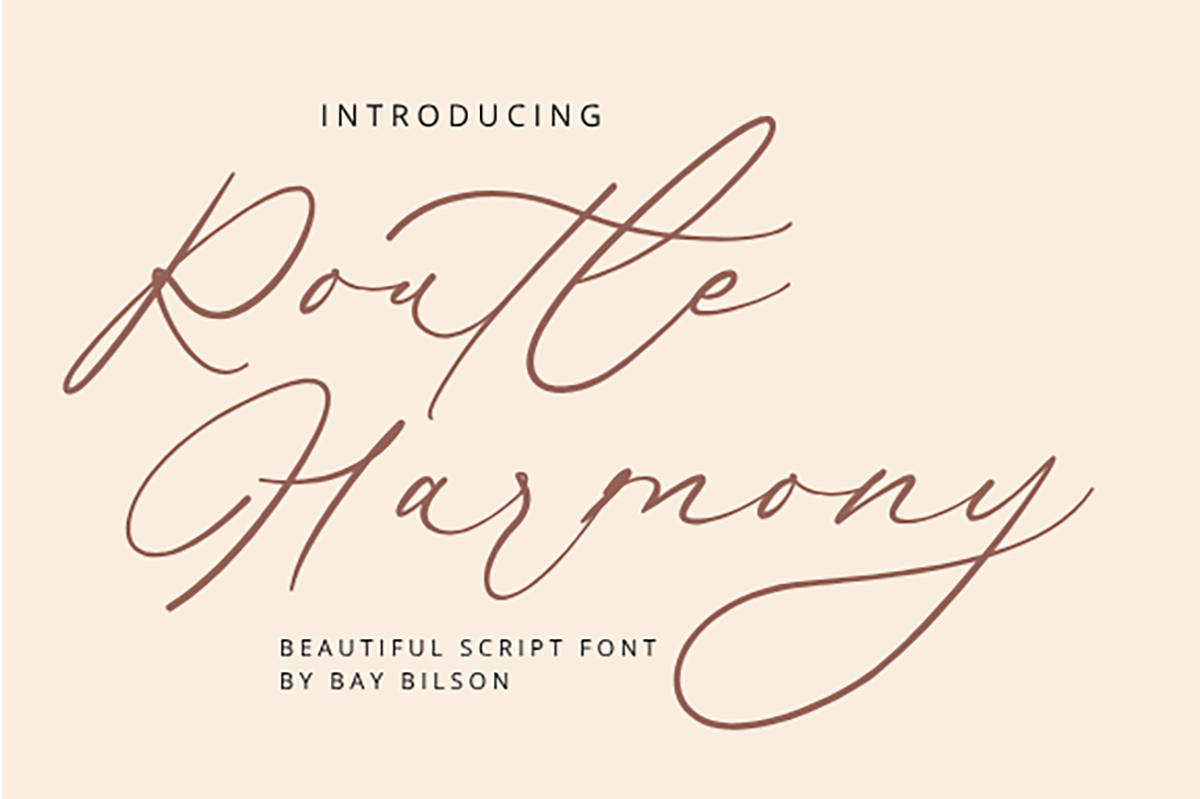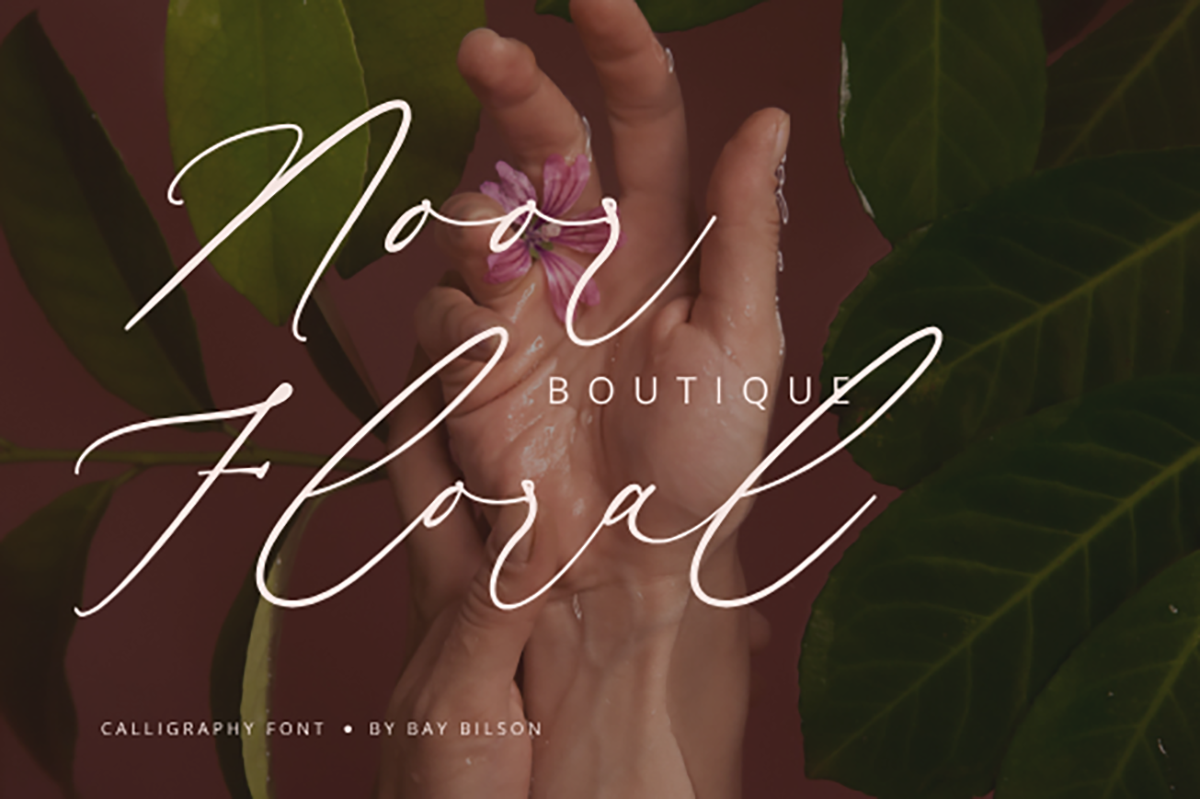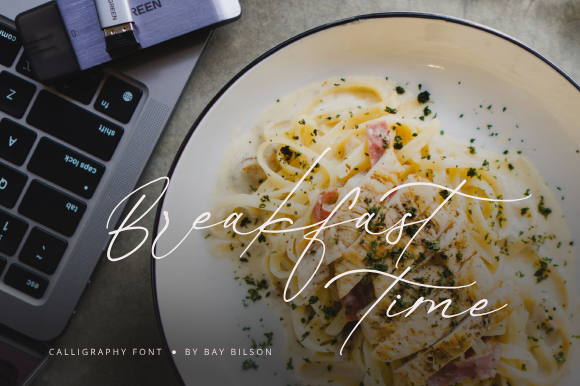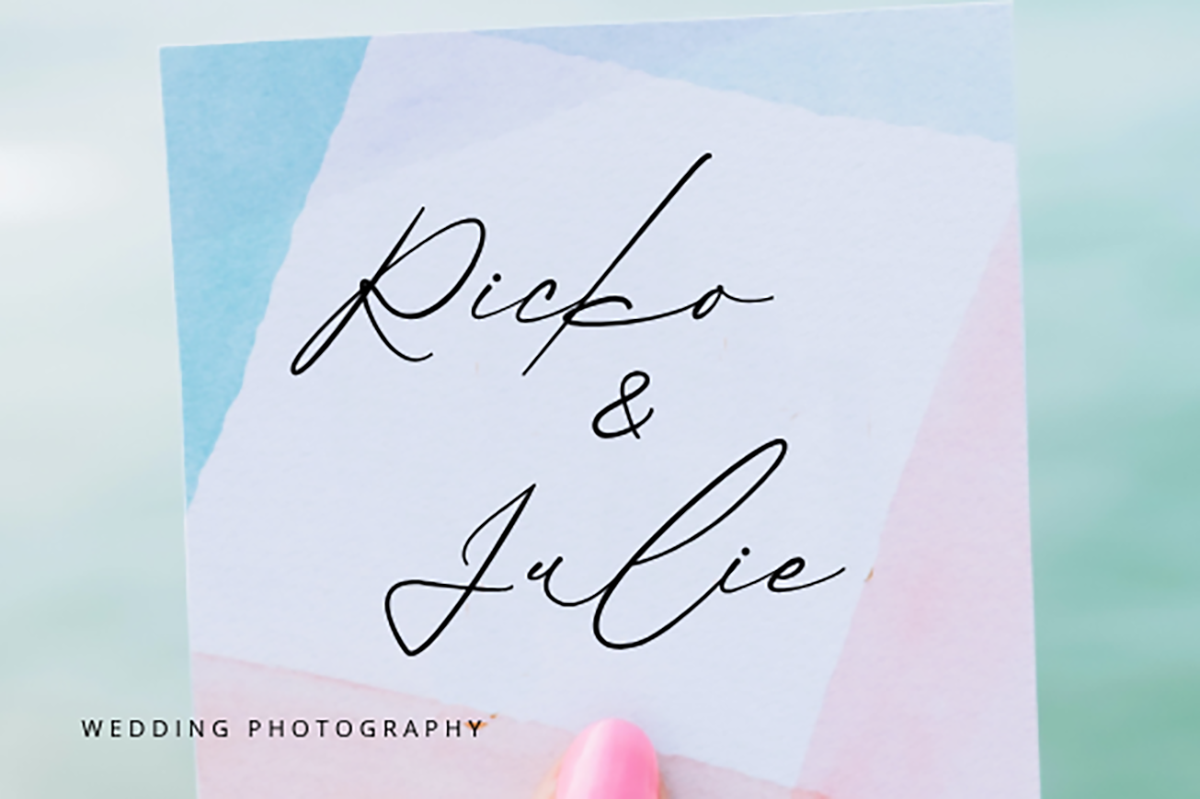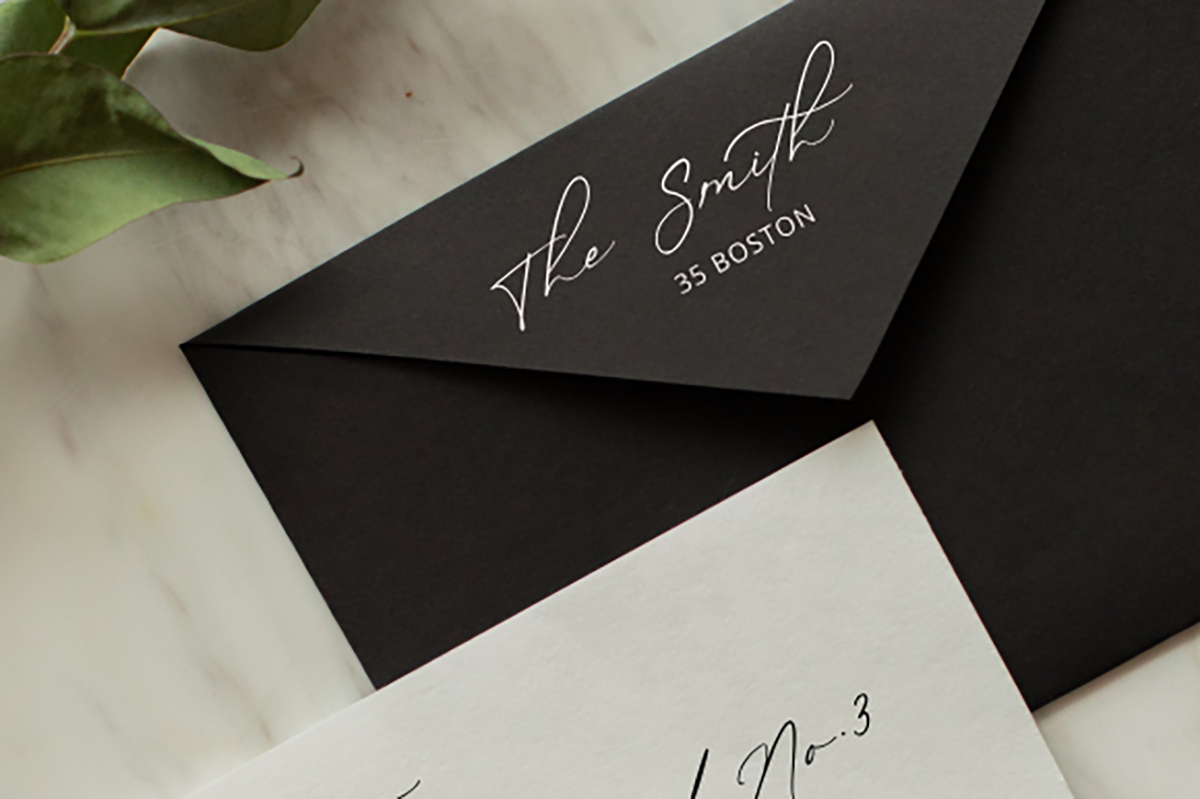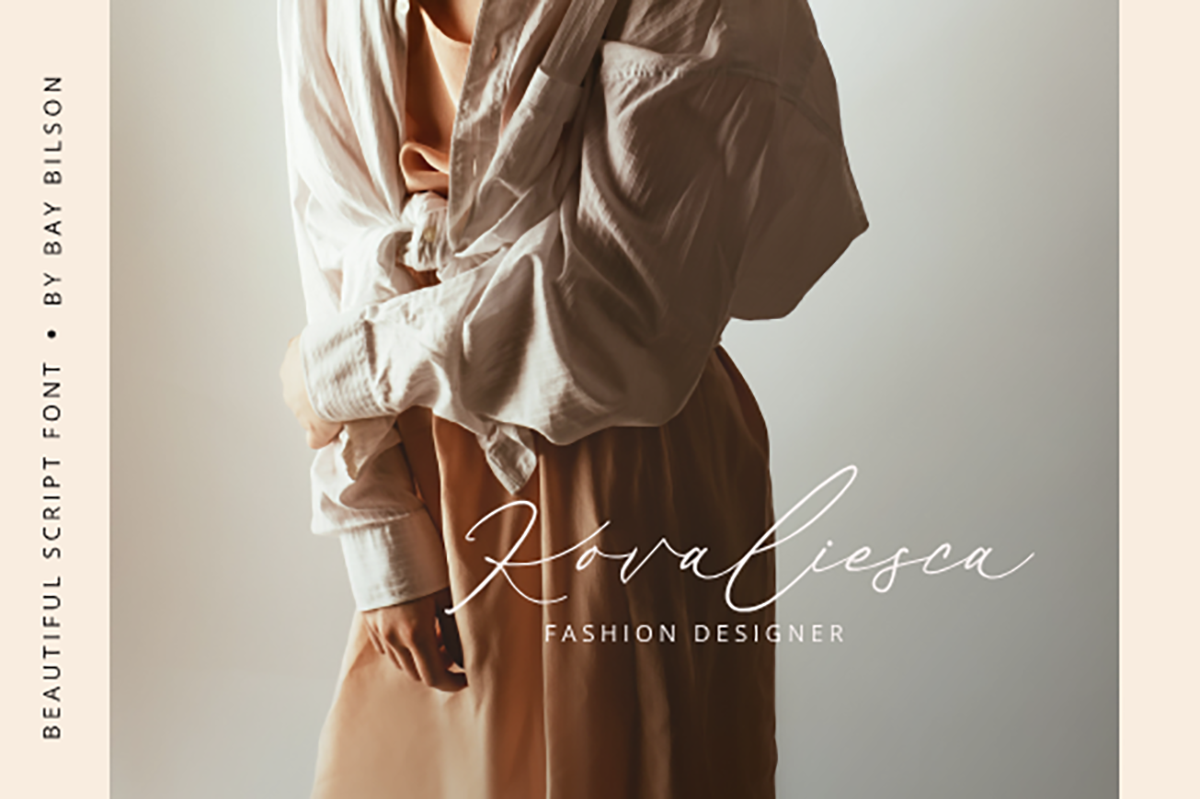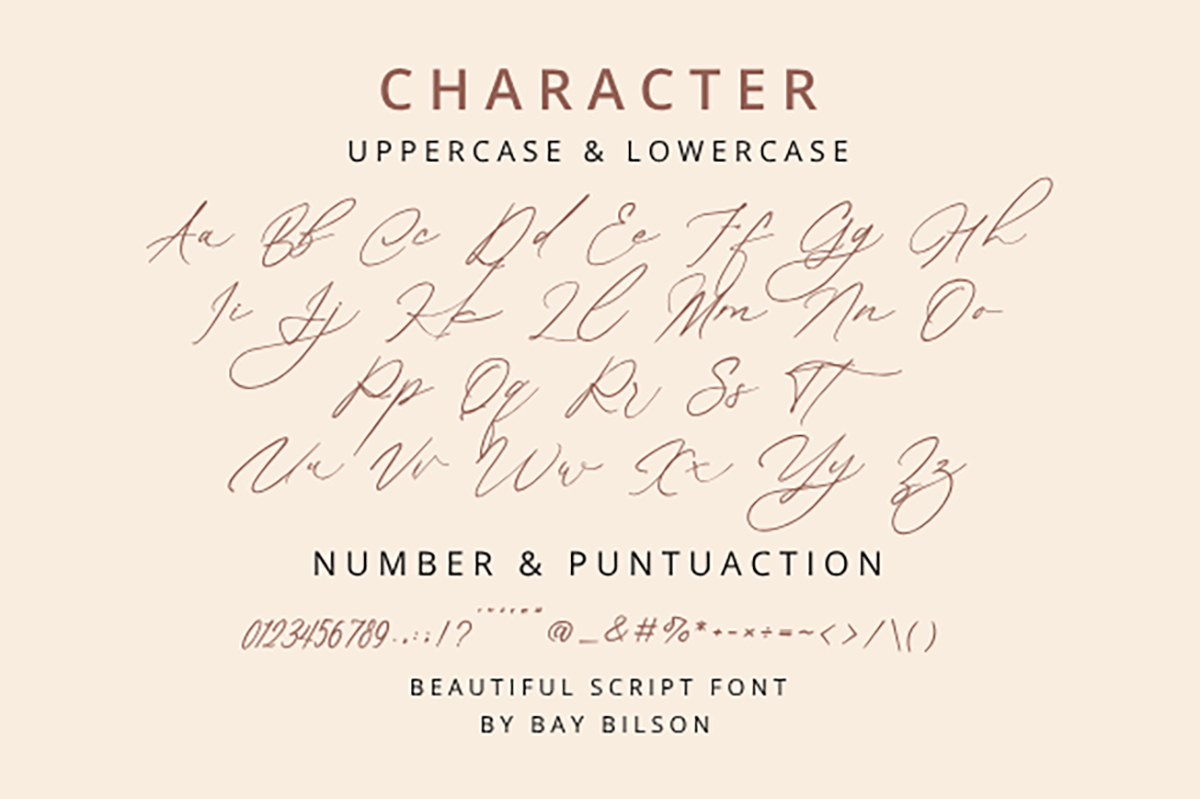
Routle Harmony Script Font is a beautiful script font that seamlessly blends traditional elegance with a modern twist. With graceful and flowing letterforms, this script typeface exudes a harmonious balance of sophistication and contemporary style. The letters are carefully crafted, featuring intricate details that add a sense of charm to each stroke. The fluidity of the script creates a charming rhythm, evoking a sense of grace and poise.